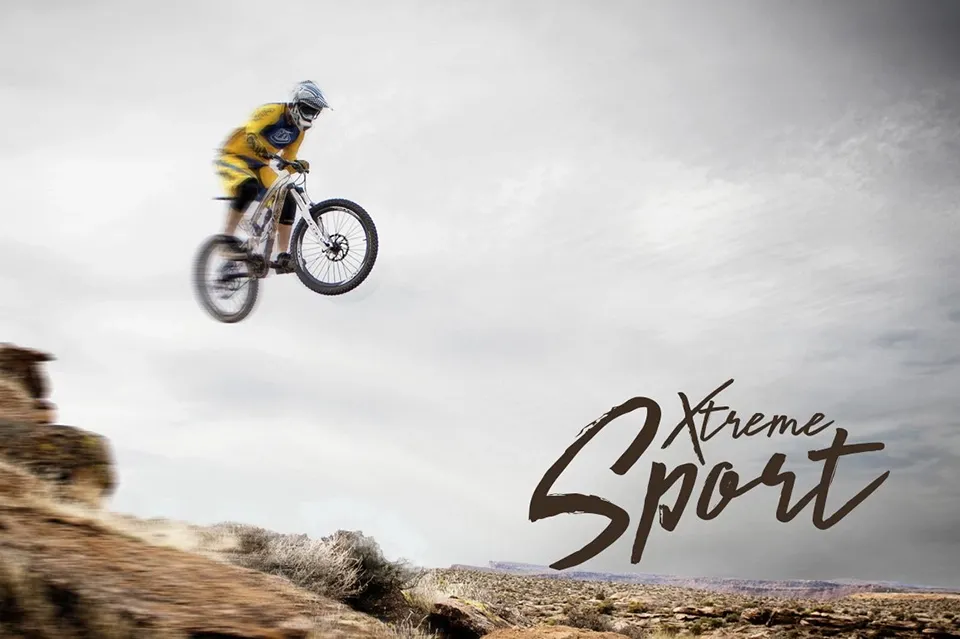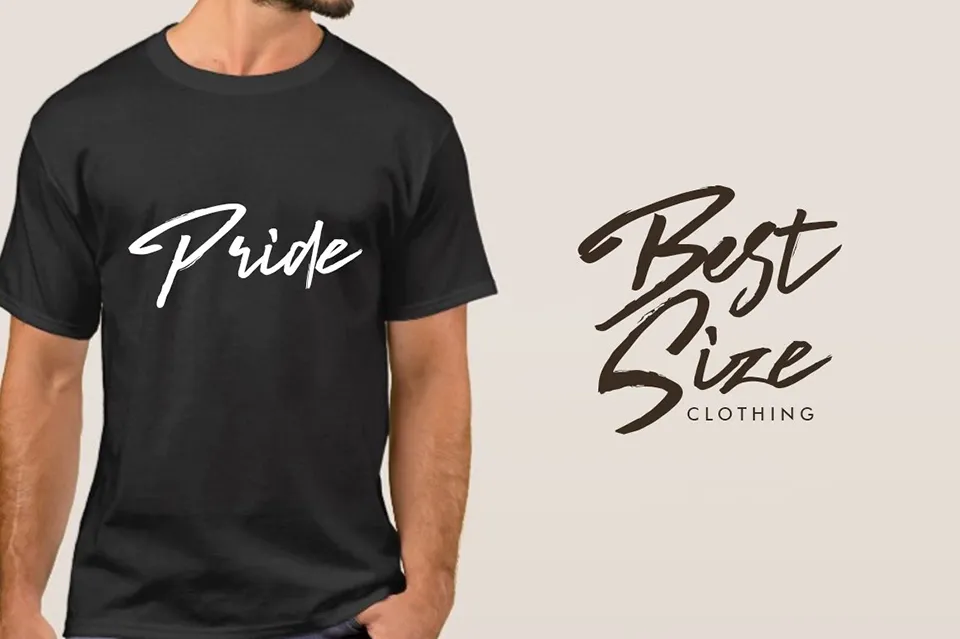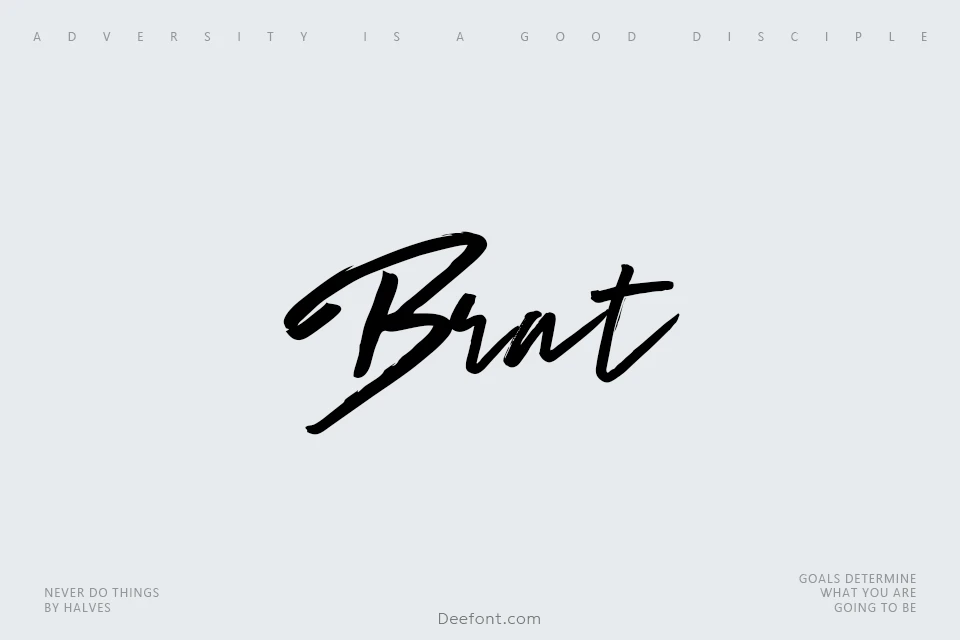
Brat Brush Typeface
Brat Brush Typeface is a bold, hand-brushed font designed to bring a fresh, energetic, and vintage feel to your designs. With its rough, marker-pen style and quirky character set, this typeface is perfect for posters, logos, book covers, banners, and more. It includes both uppercase and lowercase letters, numbers, and basic punctuation, making it versatile for a variety of creative projects. Add a natural, dynamic touch to your work with Brat Brush Typeface.